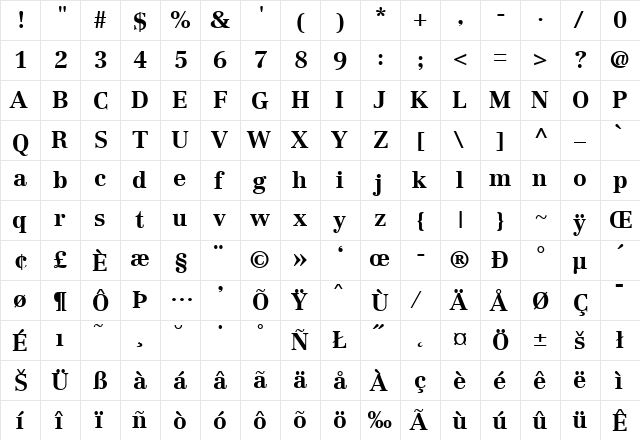
Centennial-Bold Regular
Design Context for Centennial-Bold Typeface
Centennial-Bold takes a measured approach to typography — its balanced proportions and neutral character make it a reliable workhorse for both digital and print work. Its bold stroke weight gives it real presence on the page.